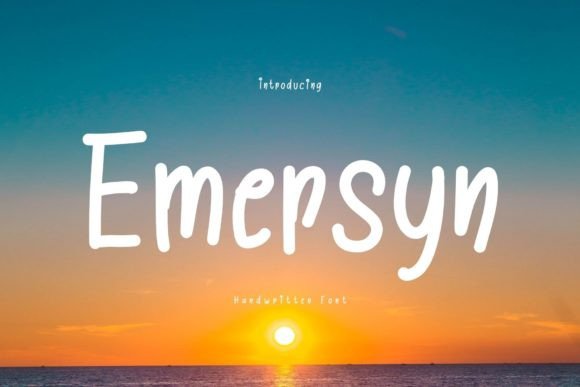
Behold the Enchanting Emersyn Font, a Masterpiece of Handcrafted Charm
In the realm of typography, there lies a font of extraordinary elegance and charm, the Emersyn Font. A creation of Brown Cupple Fonts, Emersyn exudes a magical aura, capturing the essence of playfulness and authenticity that will ignite your creative spirit.
Crafted with the utmost care and attention to detail, Emersyn is a script font that dances across the page with its graceful curves and whimsical strokes. Its unique design evokes a sense of nostalgia, transporting you to a world where handwritten letters were cherished works of art.
Emersyn's versatility is a testament to its boundless creative potential. Whether you're a seasoned designer exploring new horizons or a passionate hobbyist seeking to add a touch of uniqueness to your projects, Emersyn is the perfect companion to bring your vision to life.
This captivating font lends itself effortlessly to a myriad of applications, from blog posts and logos to branding, advertisements, and invitations. It adds a touch of sophistication to greeting cards, planners, and photo albums, transforming them into treasured keepsakes.
With Emersyn as your creative ally, you'll have a font that seamlessly blends elegance and playfulness, allowing you to express yourself with a unique and captivating voice. So, let your imagination soar, embrace the magic of Emersyn, and create designs that leave an unforgettable impression.